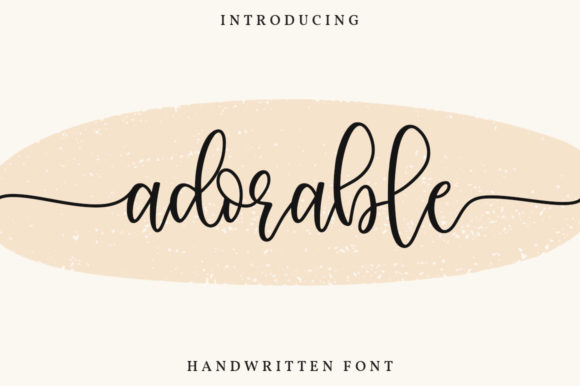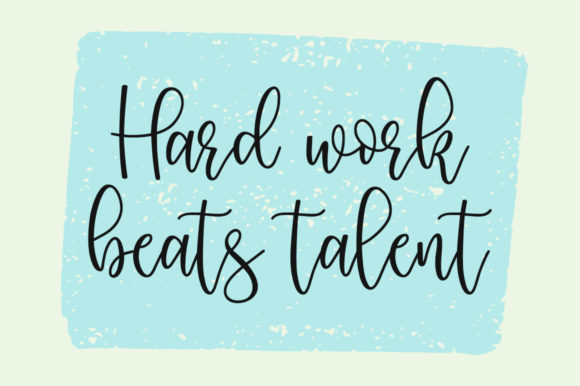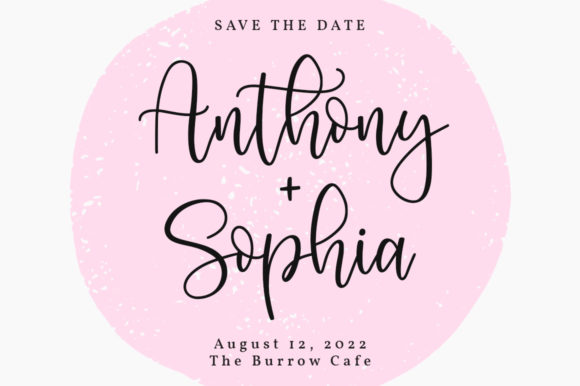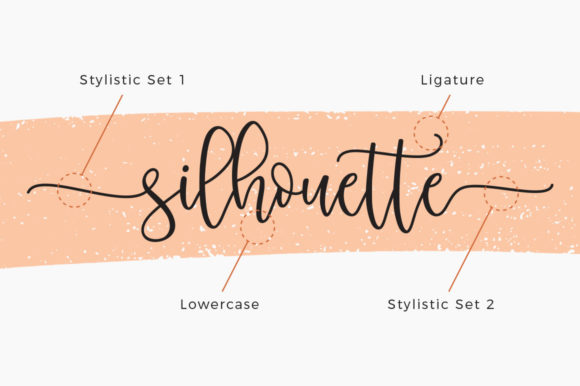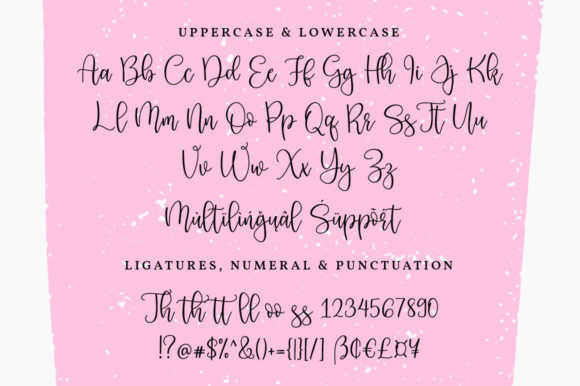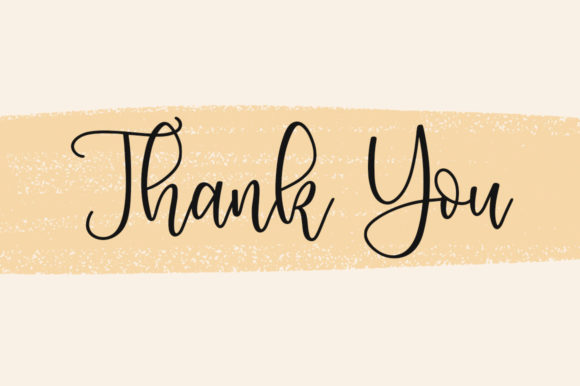
Adorable Font
About Adorable Font
Adorable is a modern calligraphy font with smooth flows. This lovely font is perfect for logos, wedding stationery, cards, gift designs, photography, watermark, product packaging and handwritten quotes. It is PUA encoded which means you can access all of the glyphs and swashes with ease!